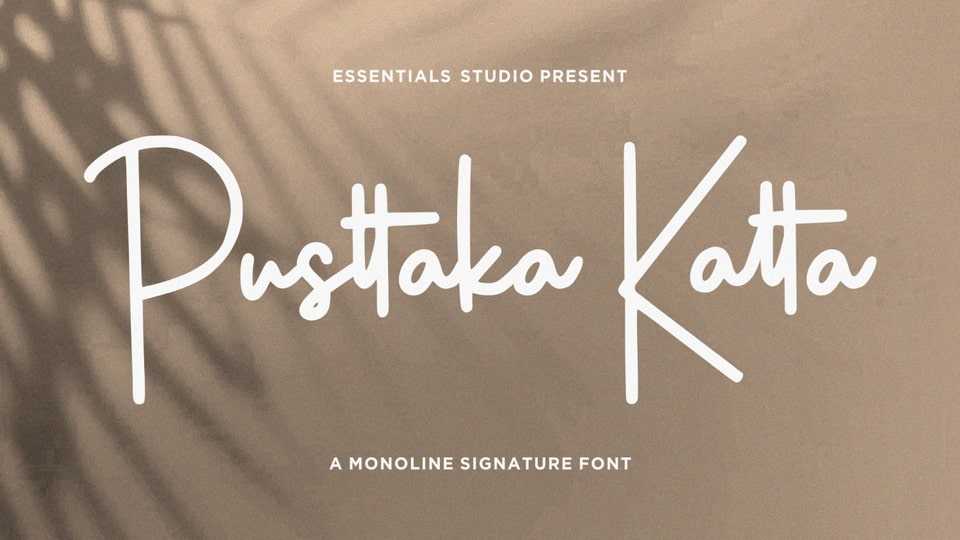
Download Pusttaka Katta font, a a monoline signature typeface. Pusttaka Katta is perfect for product packaging, branding project, magazine, social media, wedding, or just used to express words above the background.
Designer: Essentials Studio